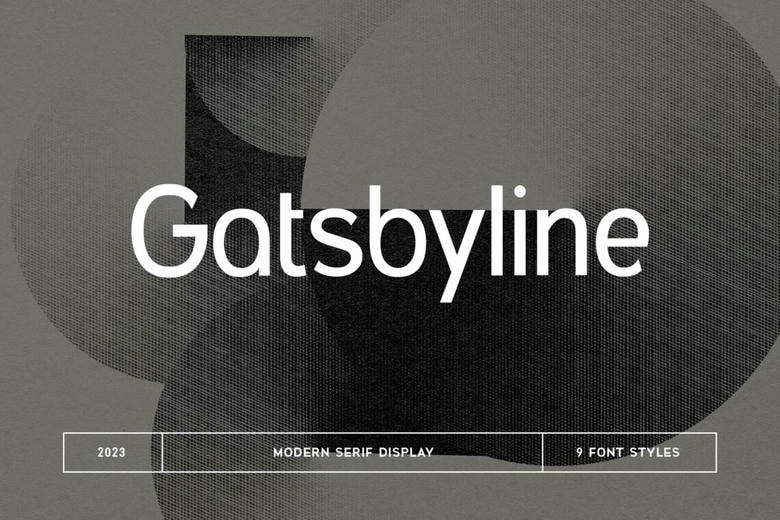
Gatsbyline Font Family
Gatsbyline is a Modern Sans Serif Font. With its clean appearance the modern display font exudes class, sophistication and sophistication. This font is perfect for signature, stationery, logo, wedding, typography quotes, magazine or book covers, website headers, branding, and any kind of project. Similarly, branding or editorial design linked to fashion and trends shows influences of both male and female.
Gatsbyline Sans Serif Font Family